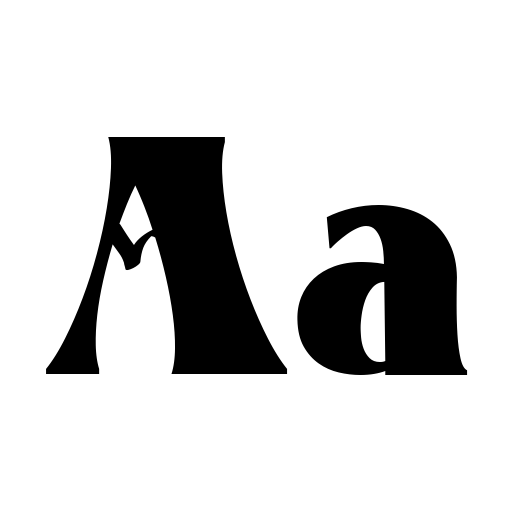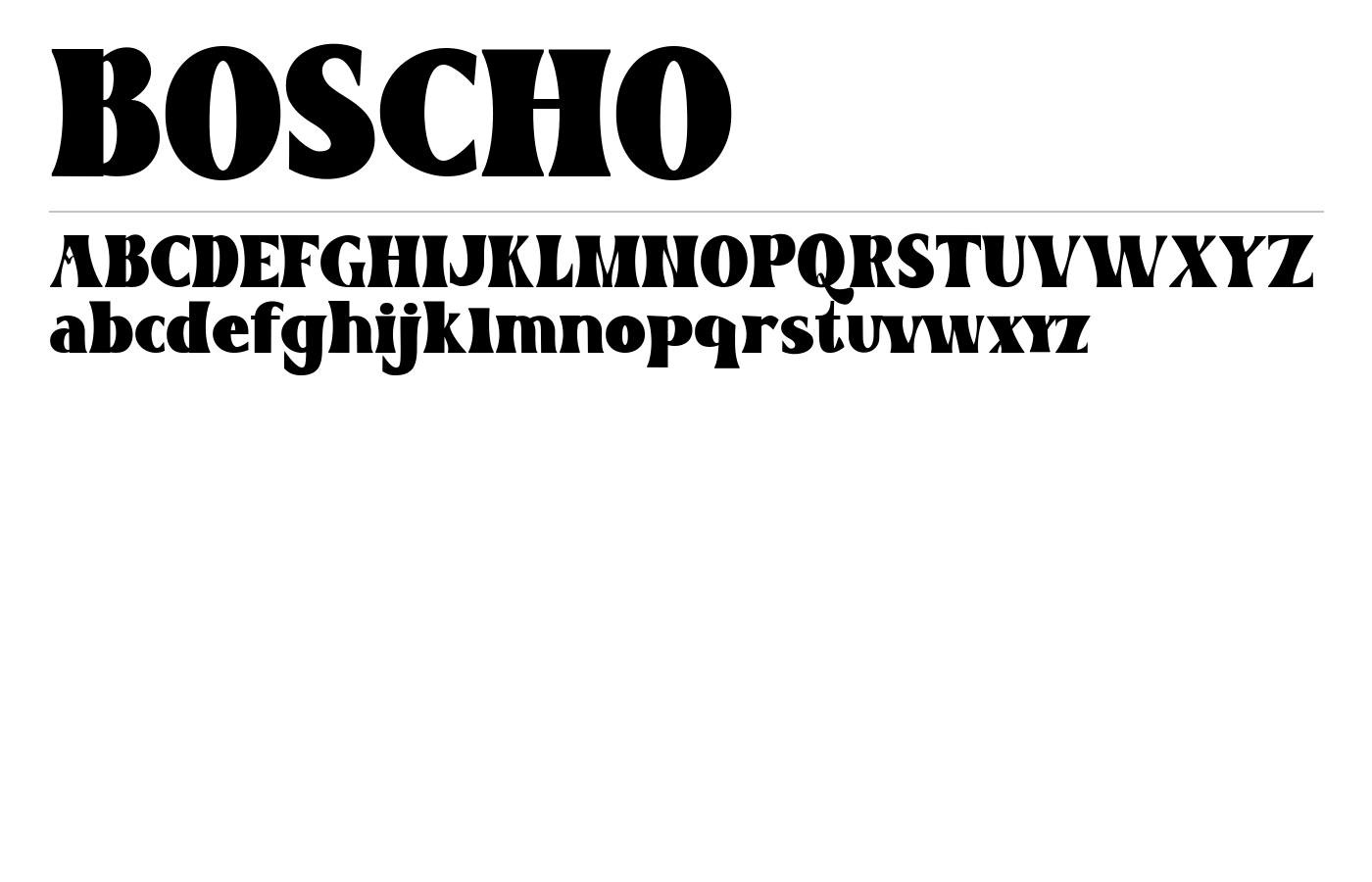
BOSCHO is a bold, serif font characterized by its strong contrast between thick and thin strokes and distinctive, sharply angled serifs that give it a dramatic, vintage flair. With its condensed letterforms and unique details like the curved tail on the Q and pronounced serifs, this font exudes a powerful, classic elegance, making it ideal for eye-catching headlines, logos, and branding that require a strong, memorable presence. Its confident style suits fashion, luxury, and editorial design where a bold statement is key.
BOSCHO Font
About BOSCHO Font